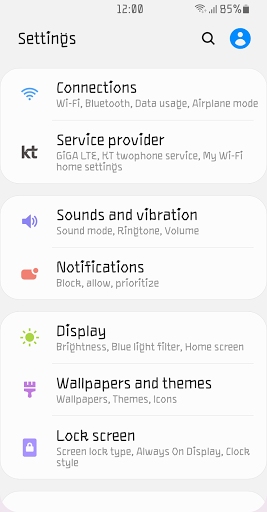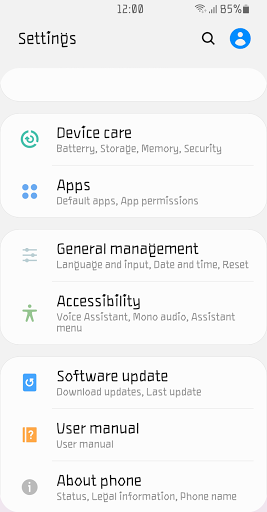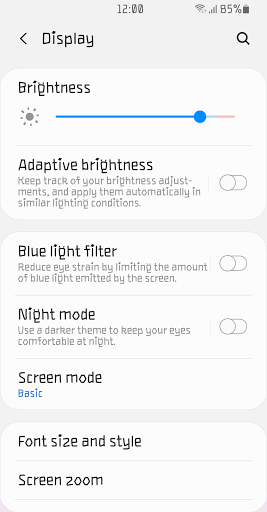
NmSigNaL™ Latin Flipfont
Is there really life in the universe? Can we go on a space tour someday? Download this font and go to a world full of mystery!